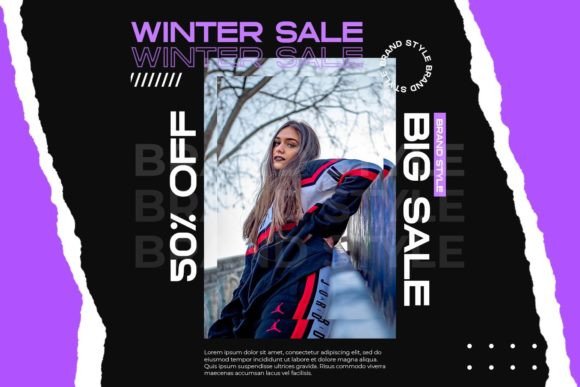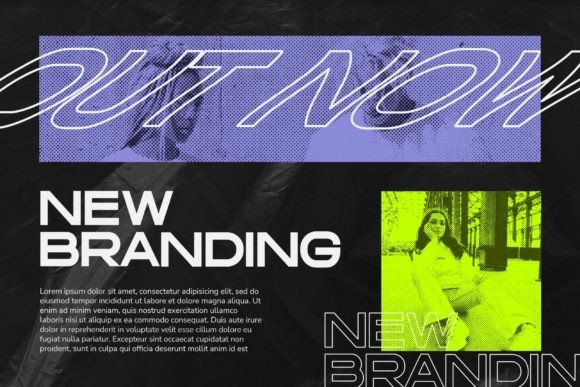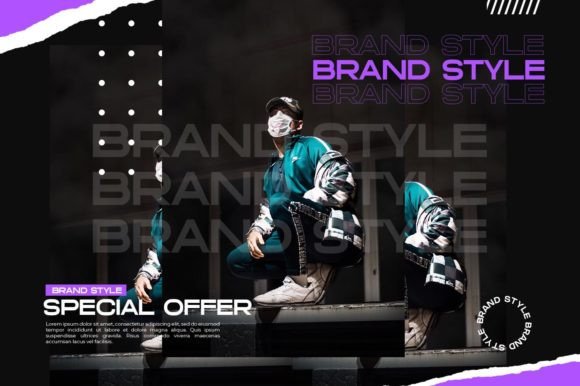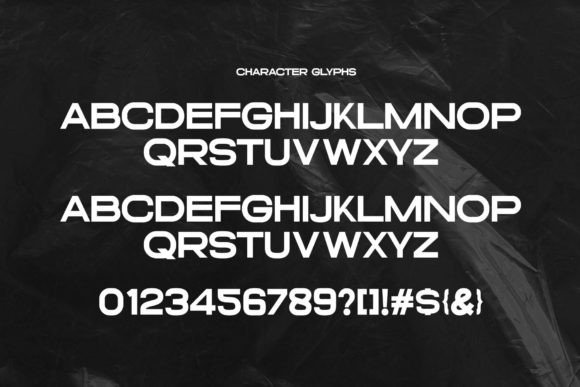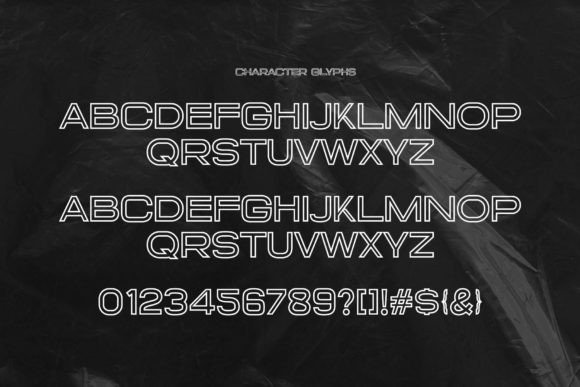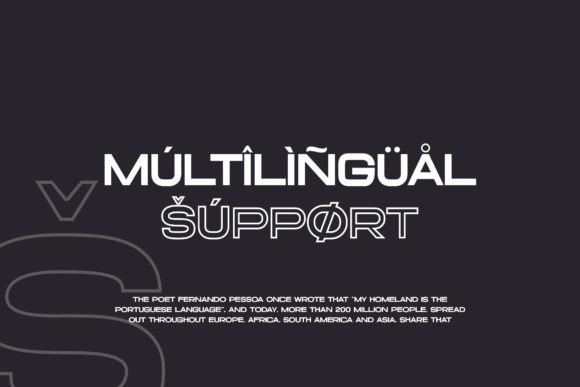
New Style Font – Free Download
Introduction to New Style Font
New style is an electric and eye-catching sans serif font that has sleek lines and smooth curves, giving it a modern and stylish look.
Its sharp and bold appearance will stand out in any design and make a statement Perfect for headlines, logos, and more.